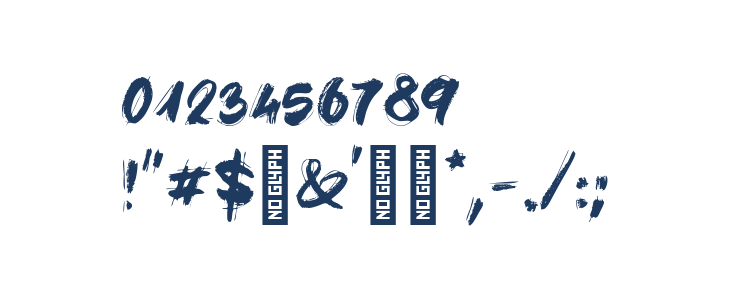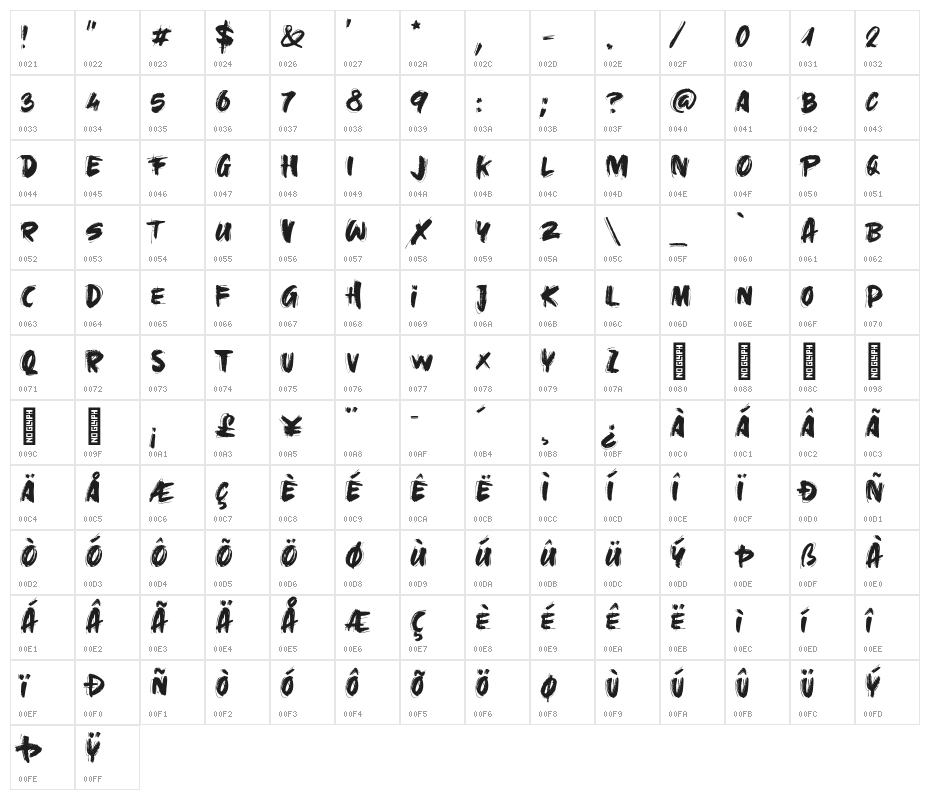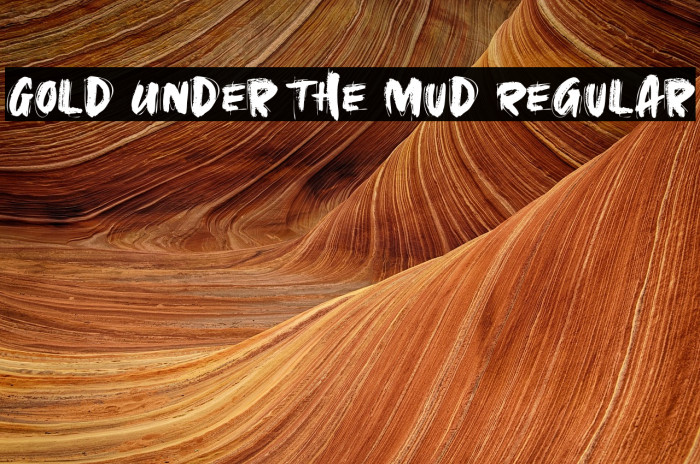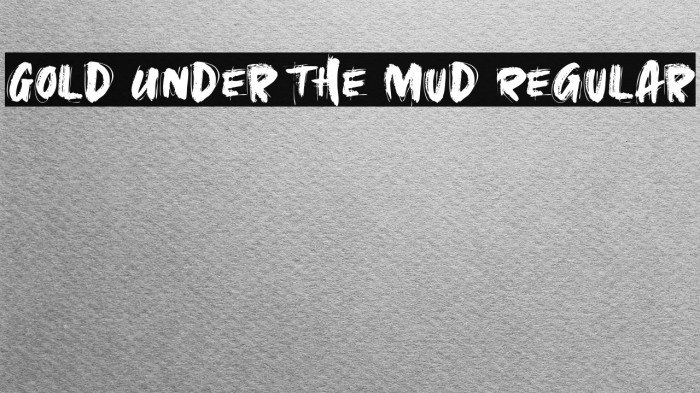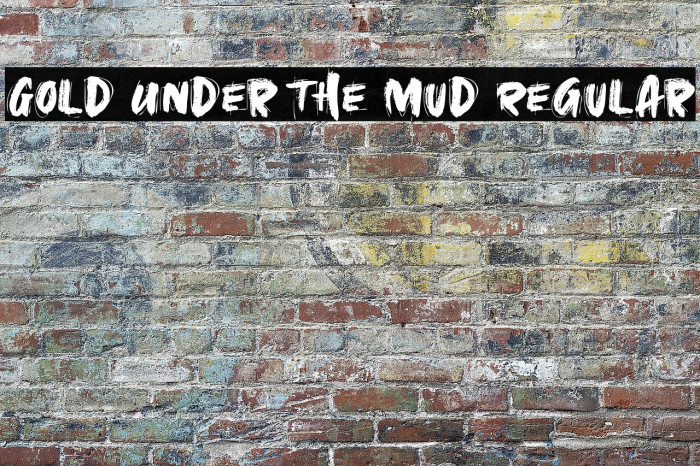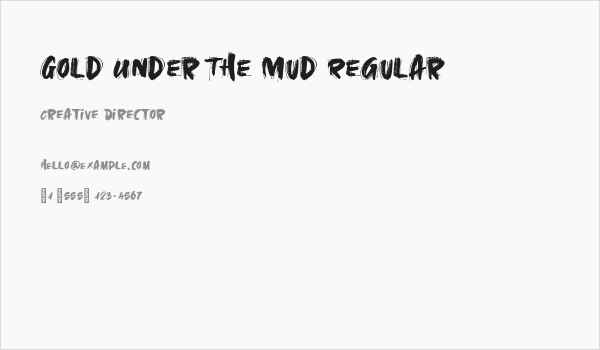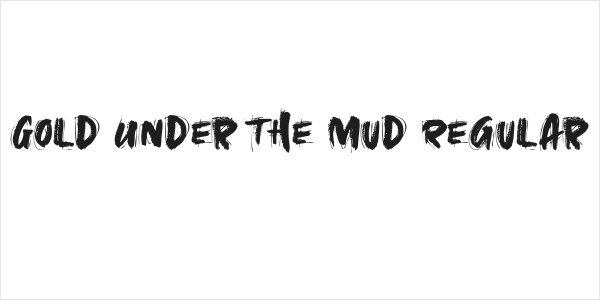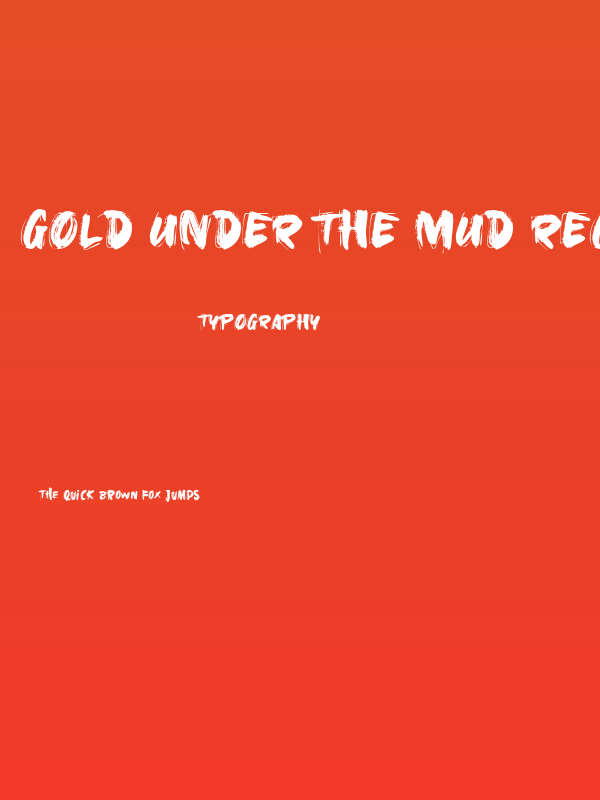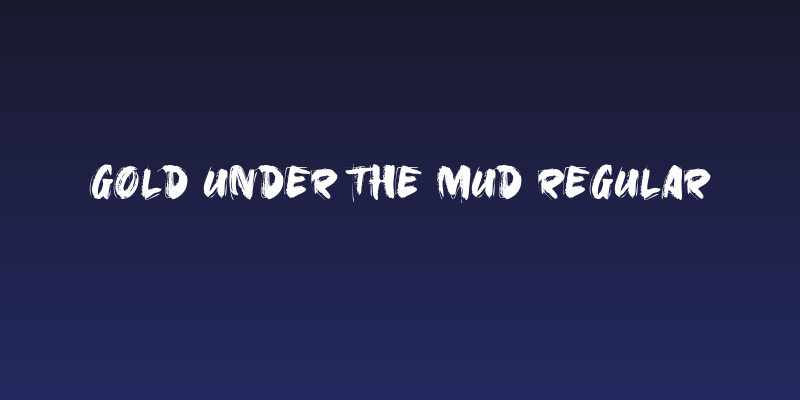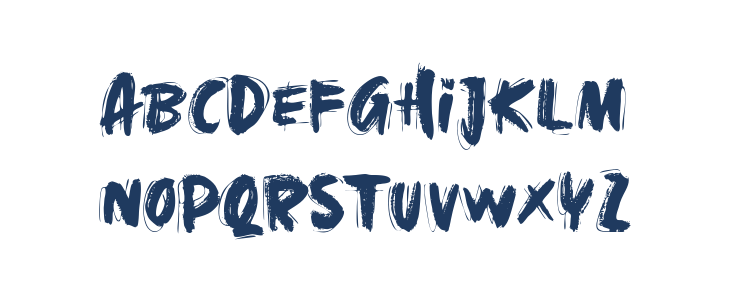
Gold Under The Mud Regular Font
Gold Under The Mud Regular Description
This font exudes a raw, energetic vibe with its bold, brushstroke style. The characters are crafted to appear as if painted with a thick brush, giving them a dynamic and artistic flair. Each letter features irregular edges and varying stroke widths, contributing to a sense of movement and spontaneity. The uppercase and lowercase letters maintain a consistent aesthetic, while the numbers and special characters integrate seamlessly, enhancing the font's versatility. Its unique appearance makes it stand out, perfect for projects that require a strong visual impact.
| Overall Style | Modern, Artistic |
| Proposed Projects | Ideal for posters, album covers, branding, and any creative project requiring a bold statement. |